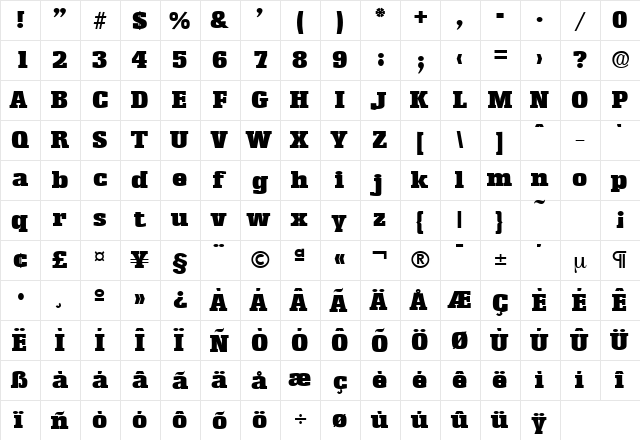
Enschede-Serial-Black Regular
Design Context for Enschede-Serial-Black Typeface
Enschede-Serial-Black is a composed and adaptable typeface that performs quietly and consistently across a wide range of design contexts.